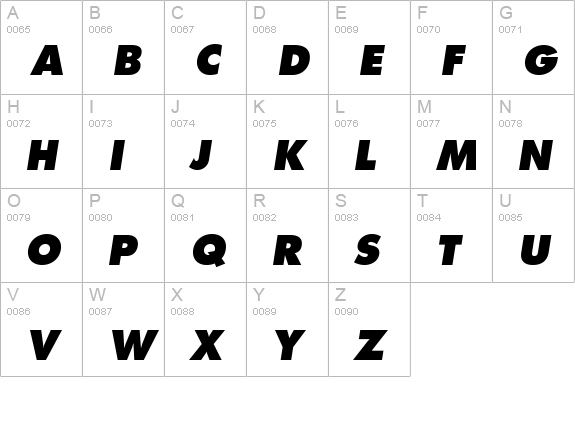
Futura Std Extra Bold Oblique is a strong, high-contrast, italic variant in the Futura typeface family \xE2\x80\x94 well suited to headlines, attention-grabbing titles, and strong calls-to-action.
Futura Std Extra Bold Oblique is a striking and modern typeface that exudes confidence and boldness. With its sleek lines and slanted design, this font is perfect for making a statement in any design project. Whether you're looking to add a touch of sophistication to your branding or create eye-catching headlines, Futura Std Extra Bold Oblique is sure to impress. The best part? This powerful font is available for free download at FontsMarket.com. So go ahead and elevate your designs with the timeless elegance of Futura Std Extra Bold Oblique.